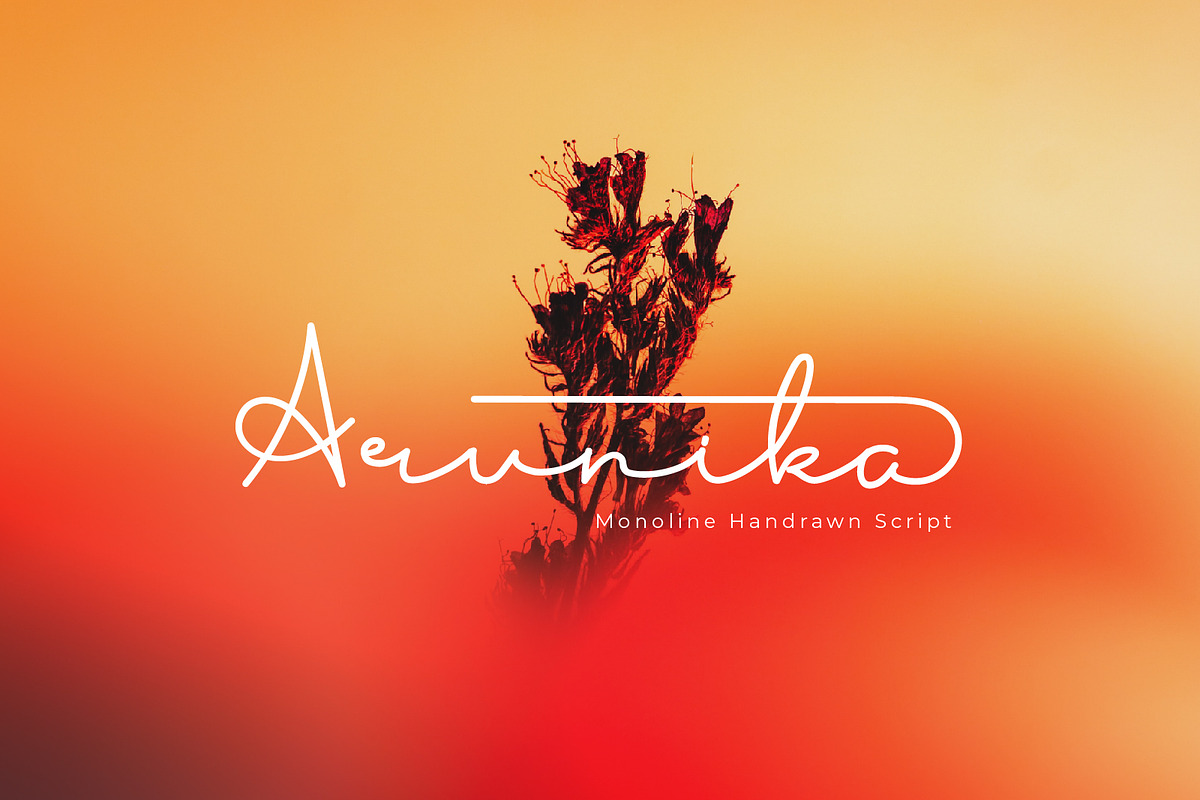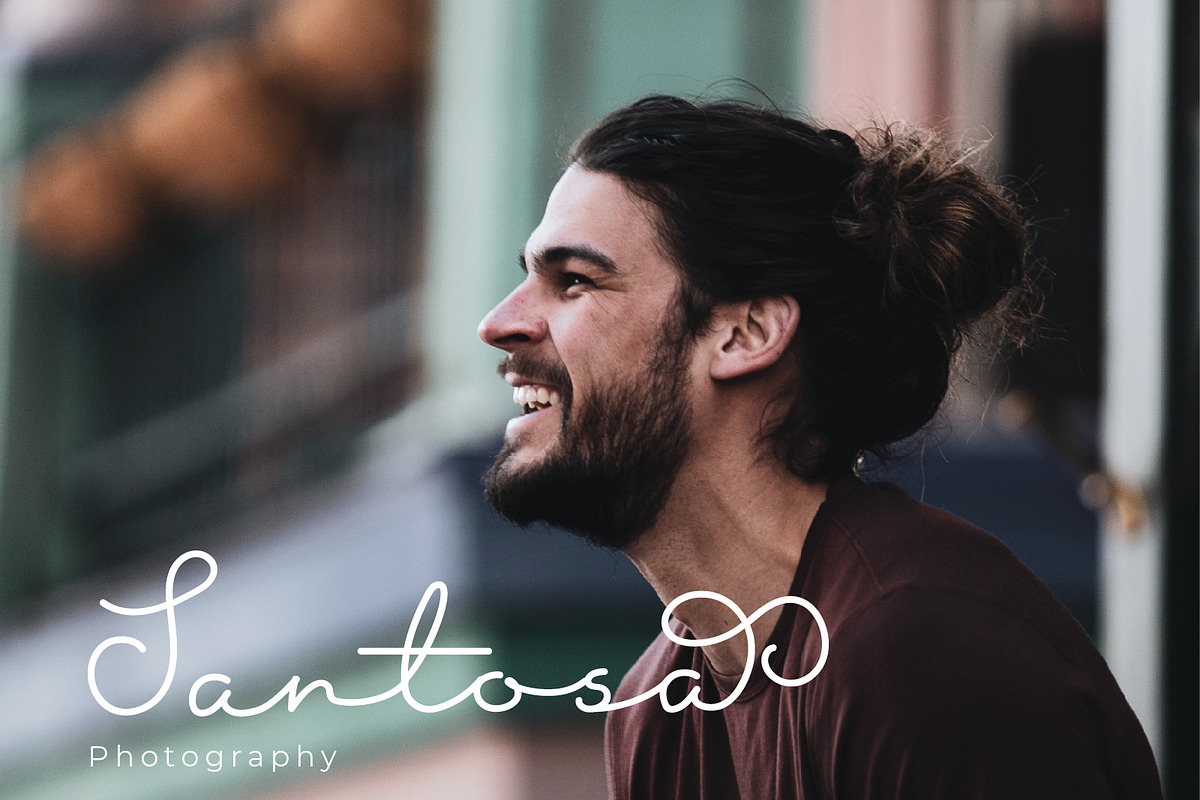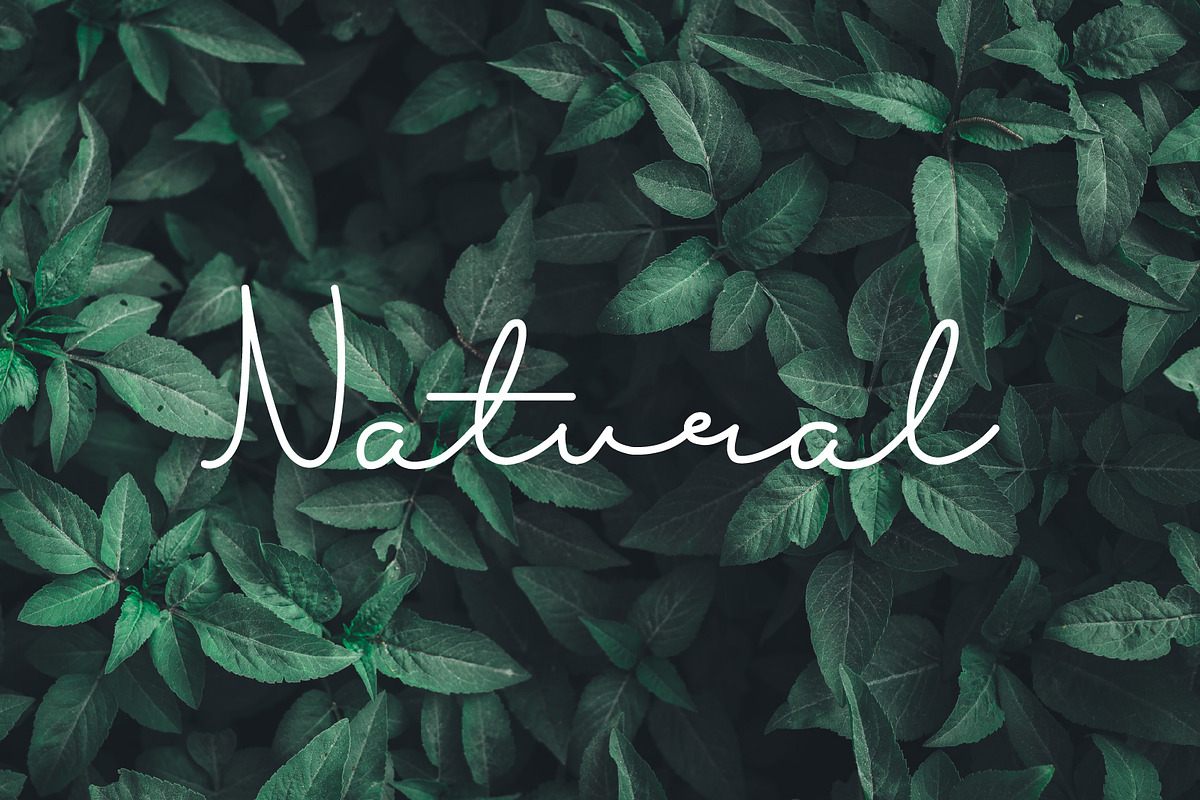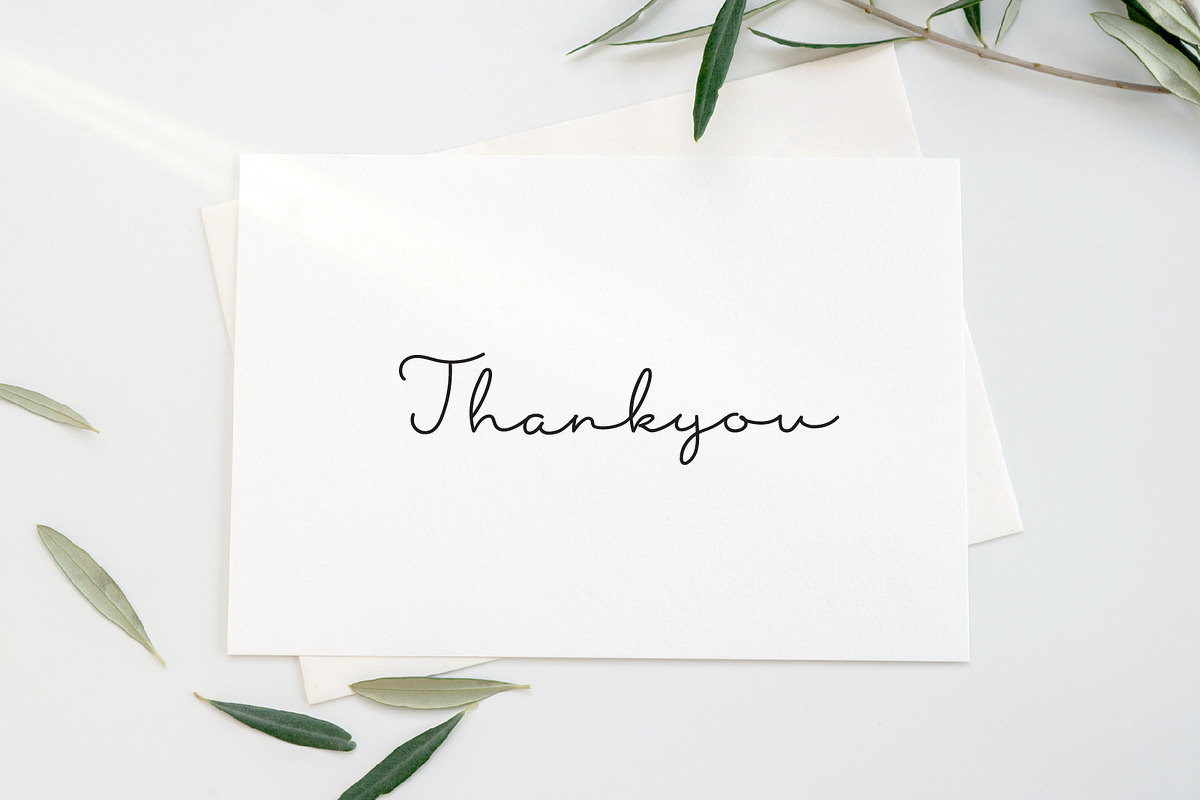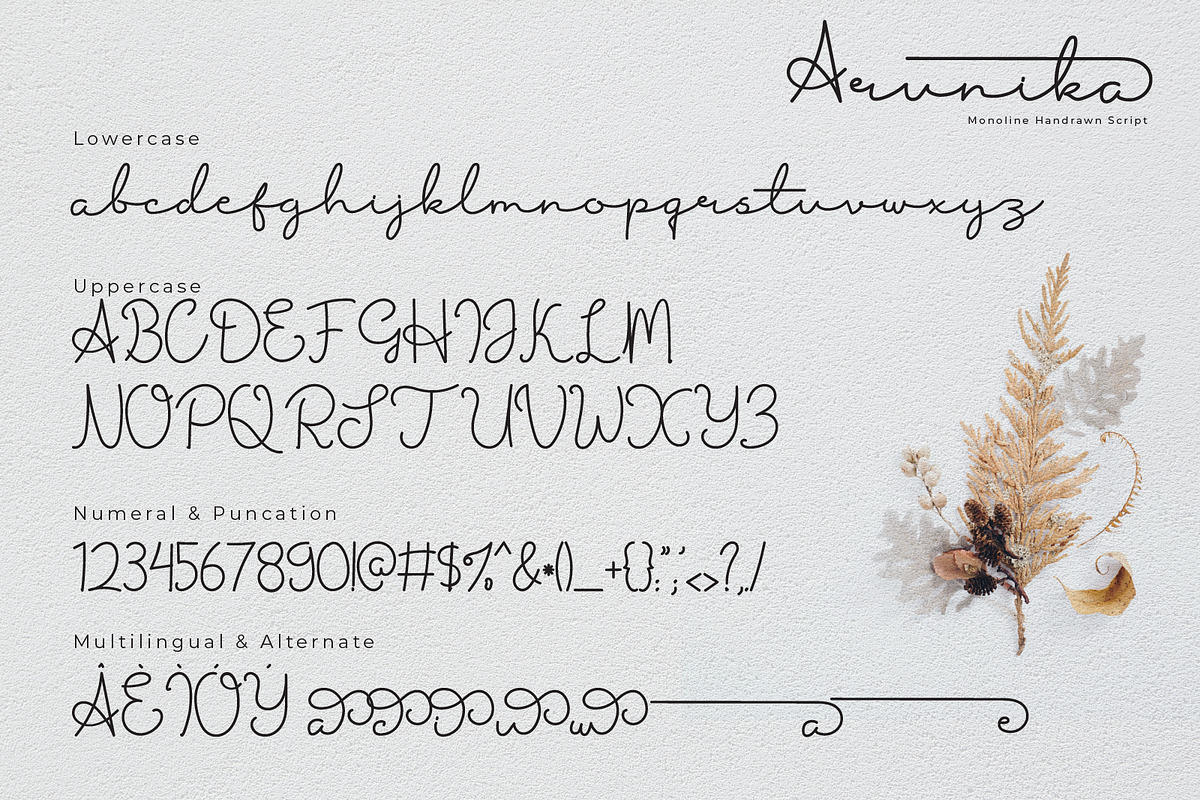
Arunika | Handwriting Font
Arunika is a beautiful light handwritten font with a unique feel and a stunning impact. It will add a luxury spark to any design project that you wish to create!